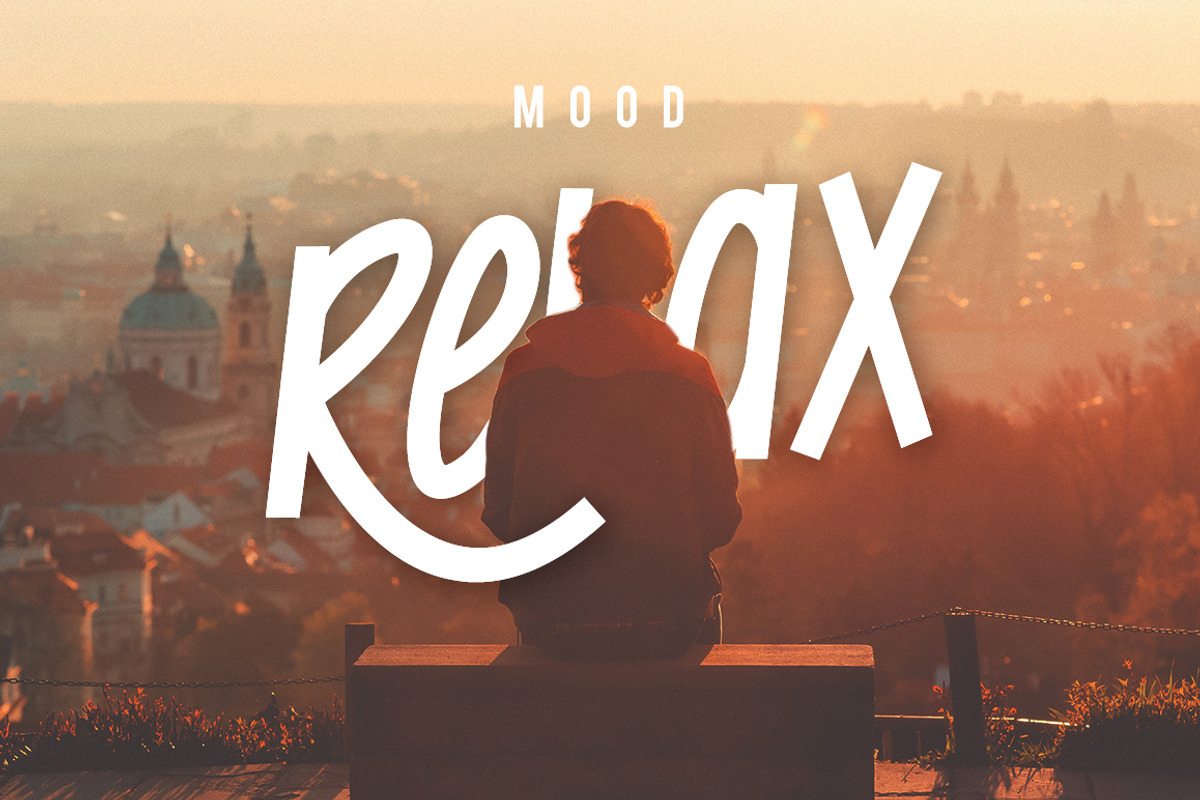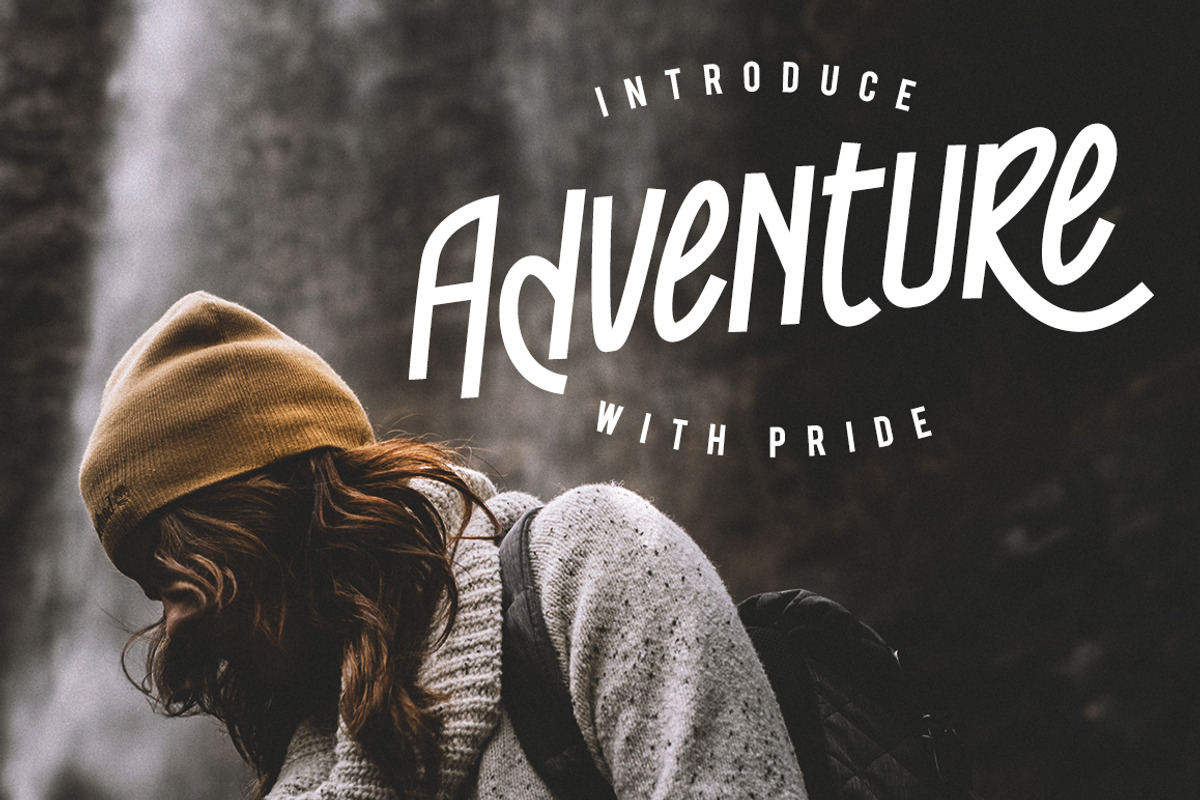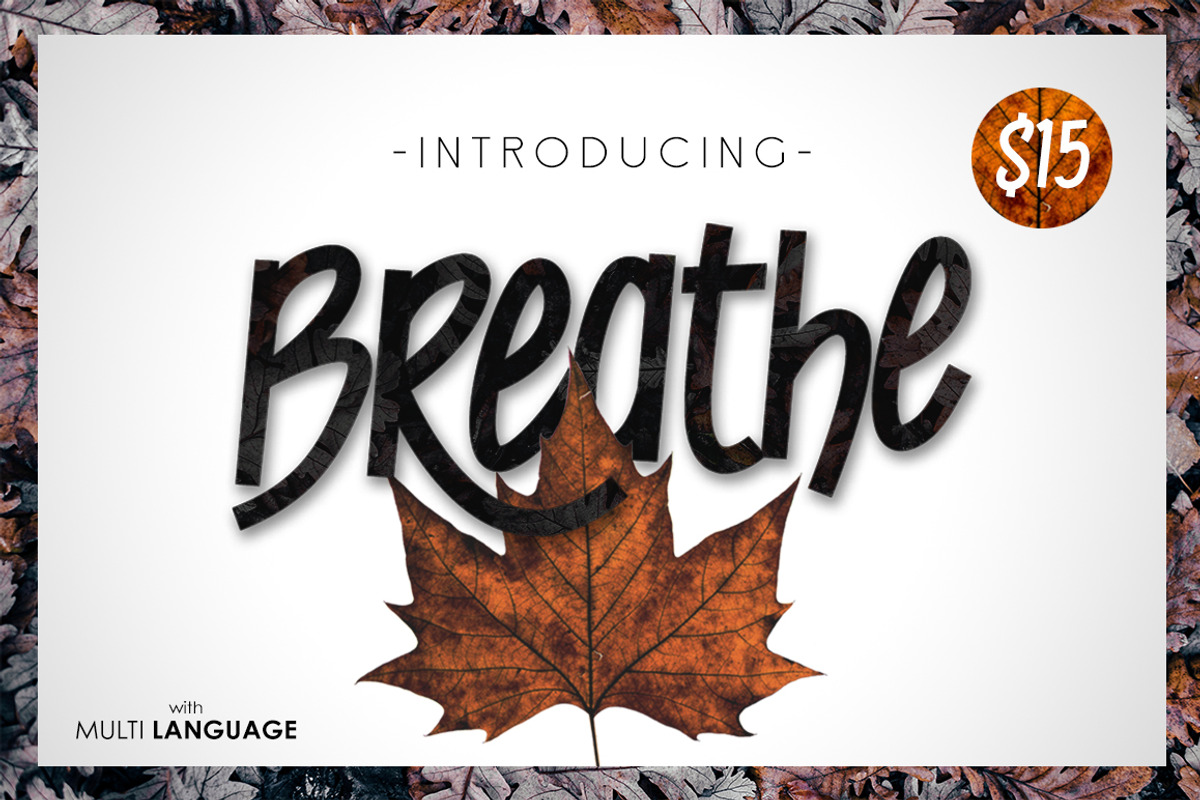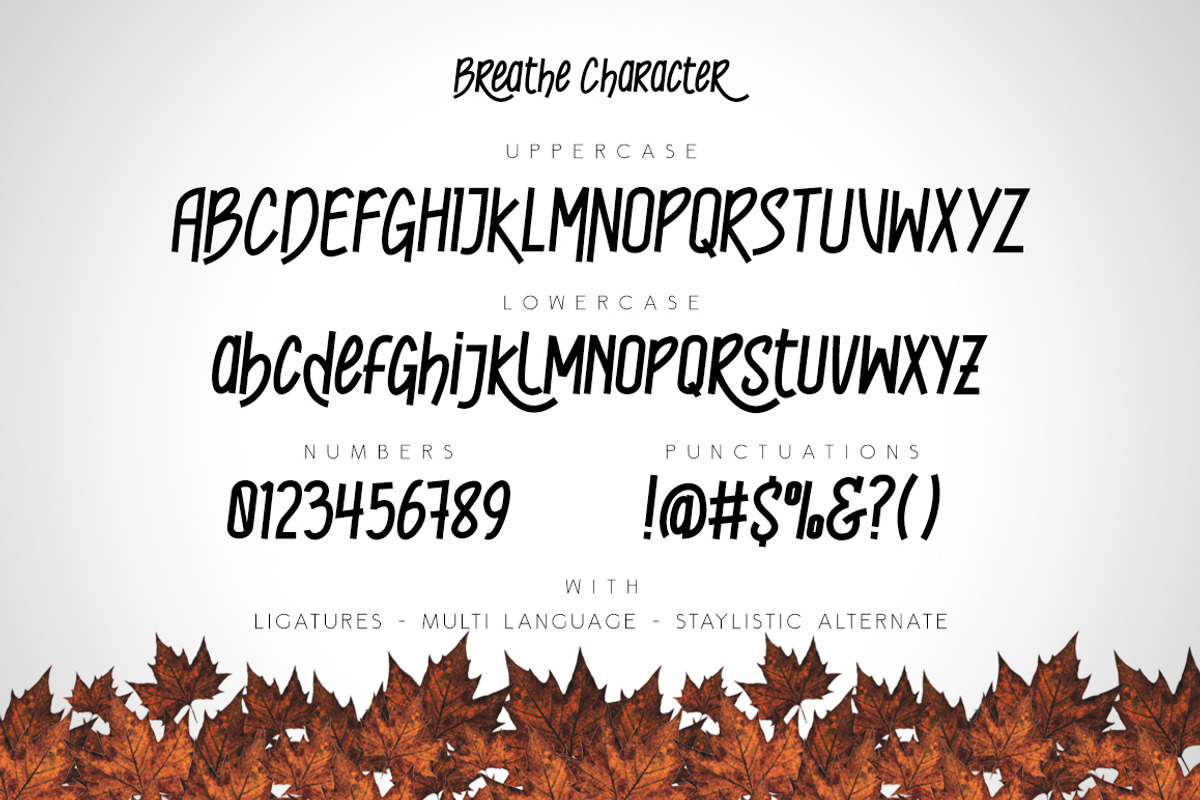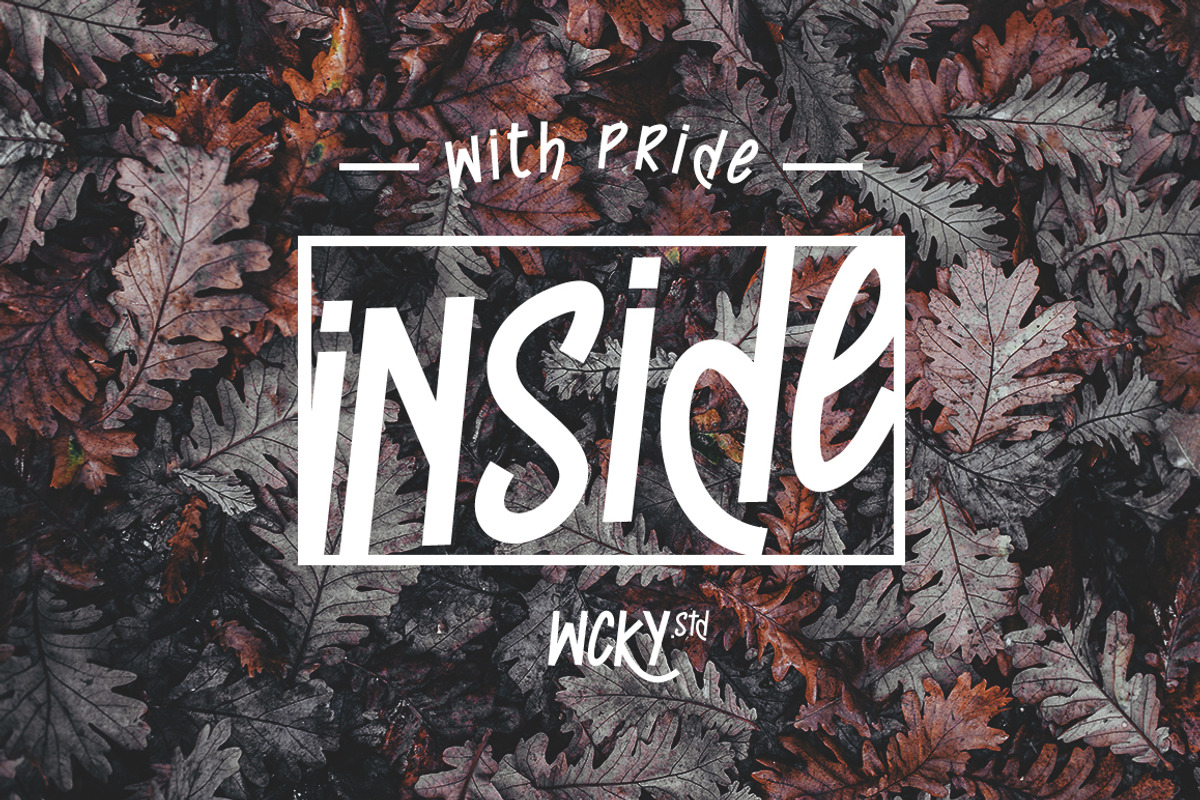
Breathe Typeface
Breathe Typeface by WCKY.STD is a font selected for branding, posters, packaging, typography.
Why Breathe Typeface is worth a look
Breathe Typeface by WCKY.STD fits naturally into Branding, posters, packaging, typography.